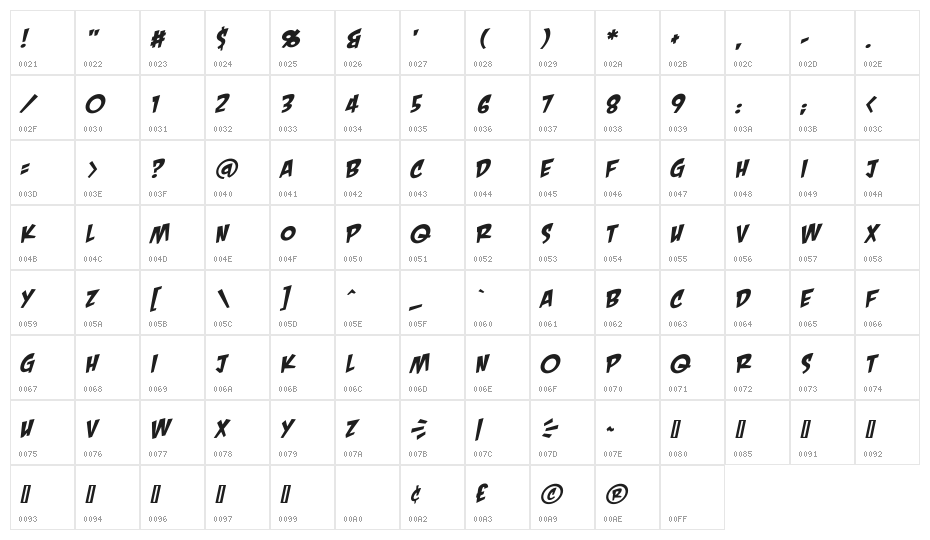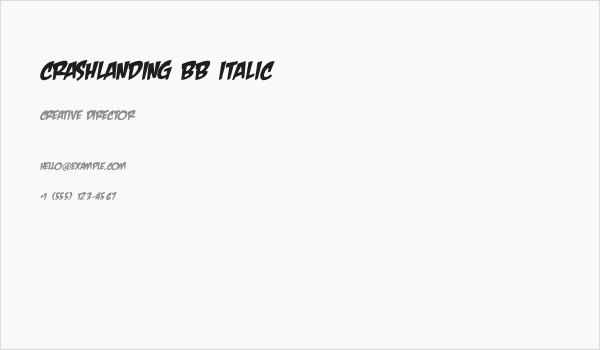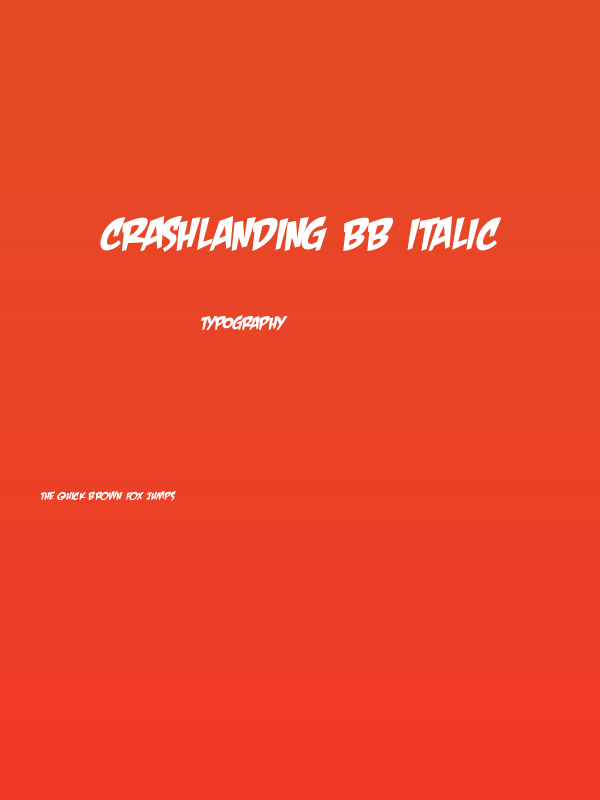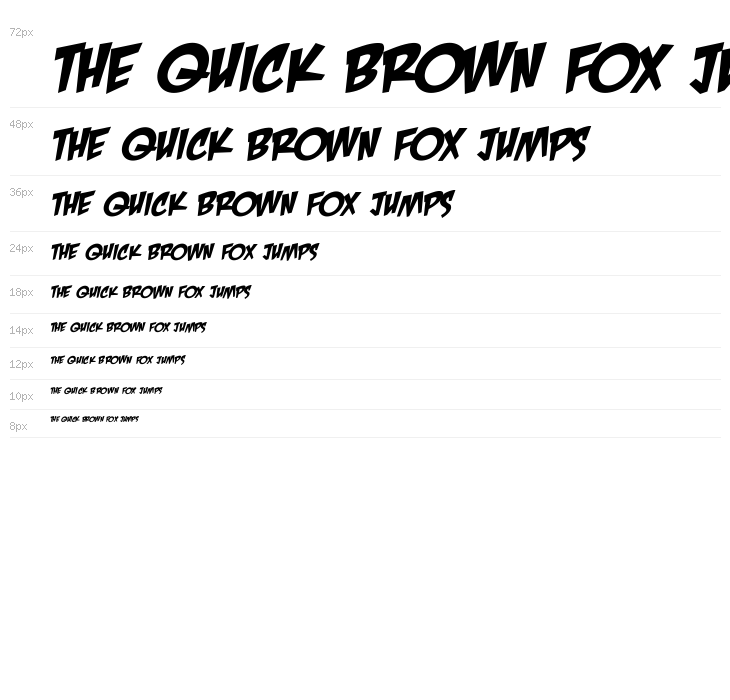
CrashLanding BB Italic Font
CrashLanding BB Italic Description
This dynamic and bold font features a striking italic style with sharp, angular edges that convey a sense of movement and energy. The uppercase and lowercase letters maintain a consistent slant, enhancing the font's aggressive and impactful appearance. The numbers and special characters are designed to match the overall style, ensuring a cohesive look across all text elements. The font's thick strokes and tight character spacing contribute to its bold presence, making it ideal for attention-grabbing headlines and designs that require a strong visual impact.
Proposed ProjectsIdeal for sports branding, action movie posters, video game titles, and dynamic advertising campaigns.